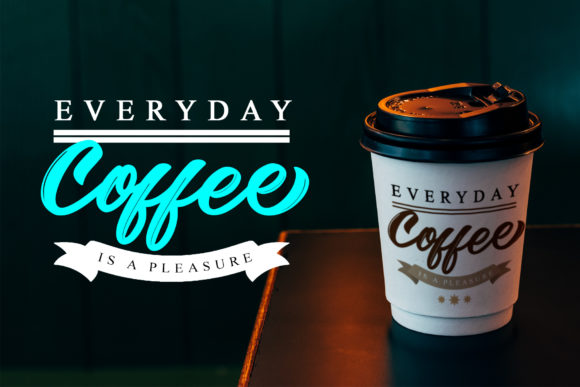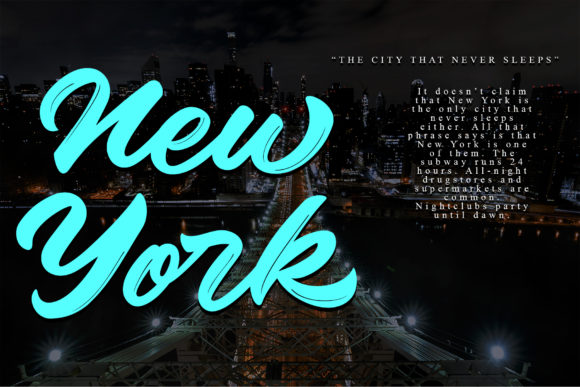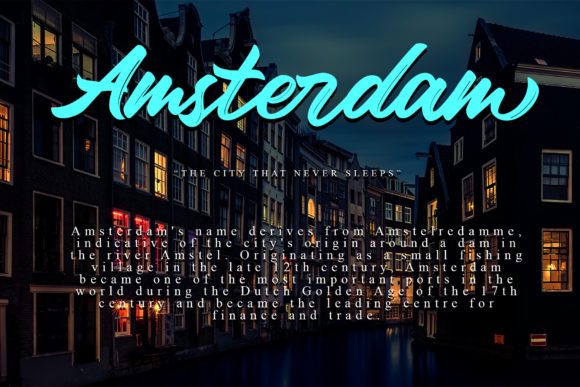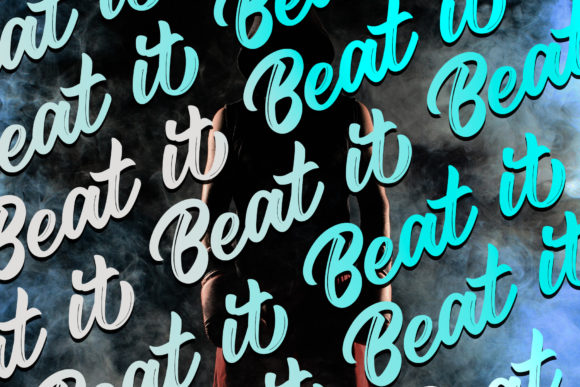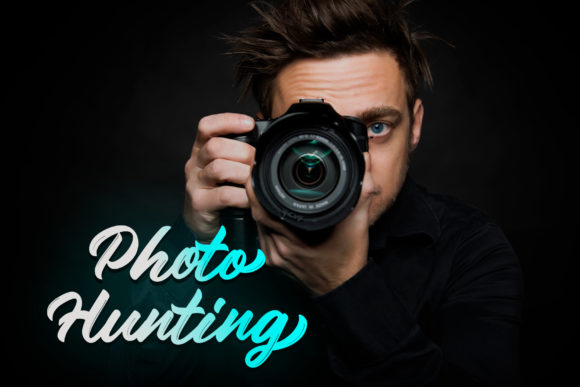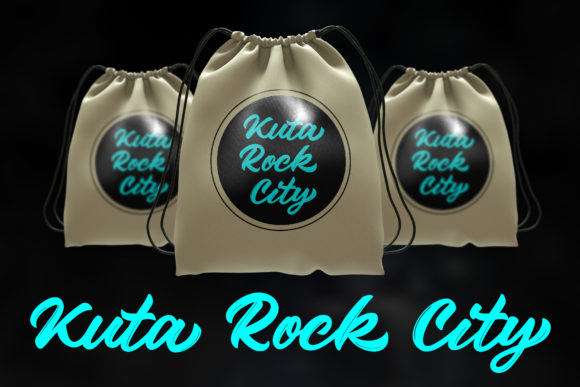
Introduction to Rolling Beat Font
Remember that moment when you were brainstorming ideas for a project, and suddenly, a spark of creativity hit you? The perfect font choice can make all the difference between a mediocre design and a masterpiece. If you’re looking for a font that exudes elegance and sophistication, you’re in luck! Introducing the Rolling Beat Font, a flowing handwritten font that’s sure to captivate your audience.
As a designer, you’re always on the lookout for high-quality design resources that can elevate your creative projects. The Rolling Beat Font is an excellent addition to your design arsenal, offering a timeless style that’s perfect for a variety of applications. With its free download and transparent background, you can use it to create stunning designs that pop.
Whether you’re working on a personal project or a commercial design, the Rolling Beat Font is a valuable asset that’s sure to impress. Its distinct style and elegant touch make it an ideal choice for designers who want to create something truly special.
Key Features of Rolling Beat Font
- High-quality font designed for creative projects and graphic design, available as a free download.
- Unique, hand-drawn style with a transparent background, perfect for adding a personal touch to your designs.
- Designed to work well in both digital and print media, making it an ideal design resource for creative projects.
Honest Review: Rolling Beat Font
I recently stumbled upon the Rolling Beat Font and I must say, it’s been a game-changer for my creative projects. As a designer, I’m always on the lookout for high-quality design resources that can elevate my work.
The Rolling Beat Font has exceeded my expectations in every way. Here’s what I love about it:
- ✨ The font is incredibly versatile and can be used for a wide range of creative projects, from music-related designs to fashion and lifestyle brands.
- ✨ The transparent background feature is a huge plus, allowing me to easily integrate the font into my designs without any distractions.
While the Rolling Beat Font is an excellent resource, there are a few limitations to keep in mind:
- ⚠️ The font may not be suitable for very small-scale designs, as the letters can become quite intricate.
- ⚠️ Some users may find the font’s bold style overwhelming for certain design applications.
Overall, I’m thoroughly impressed with the Rolling Beat Font and would highly recommend it to fellow designers. Its high quality and versatility make it a valuable addition to any design resource collection.
Introduction to Rolling Beat Font
The Rolling Beat Font is a high-quality, free design resource perfect for any creative project. This font features a transparent background, making it ideal for use in various digital design applications.
Tips for Getting the Most Out of Rolling Beat Font
To get the most out of the Rolling Beat Font, experiment with different font sizes, colors, and combinations to achieve the desired effect. You can also use the font in conjunction with other design elements, such as images and graphics, to create a unique and visually appealing design.
The Rolling Beat Font is ideal for use in various creative projects, such as:
- Music-related designs, such as album covers and posters
- Event invitations and promotional materials